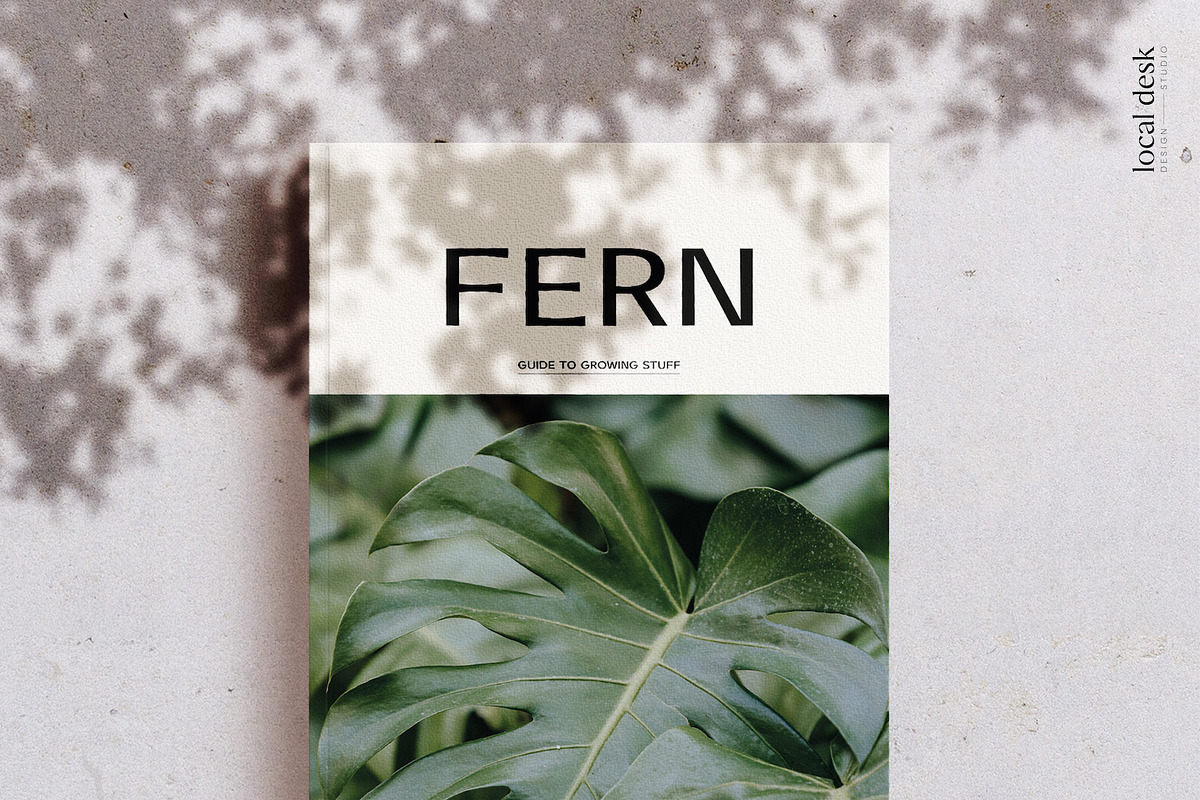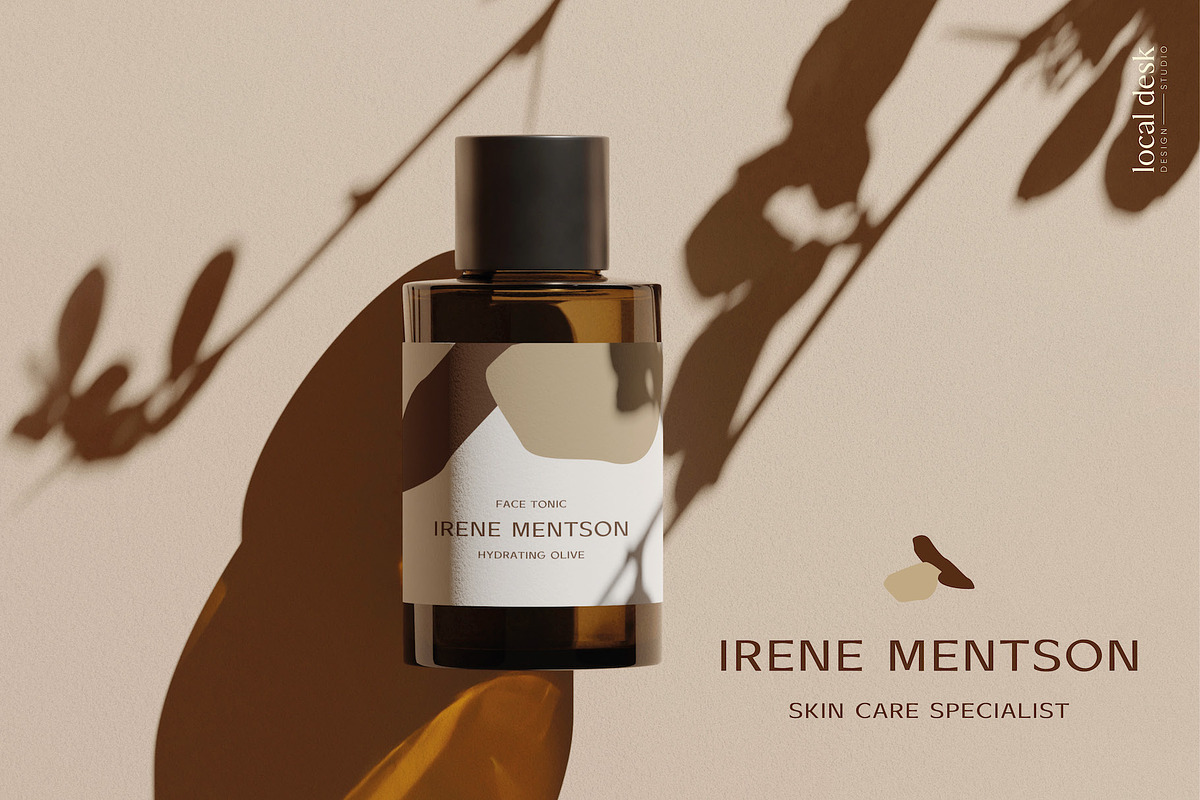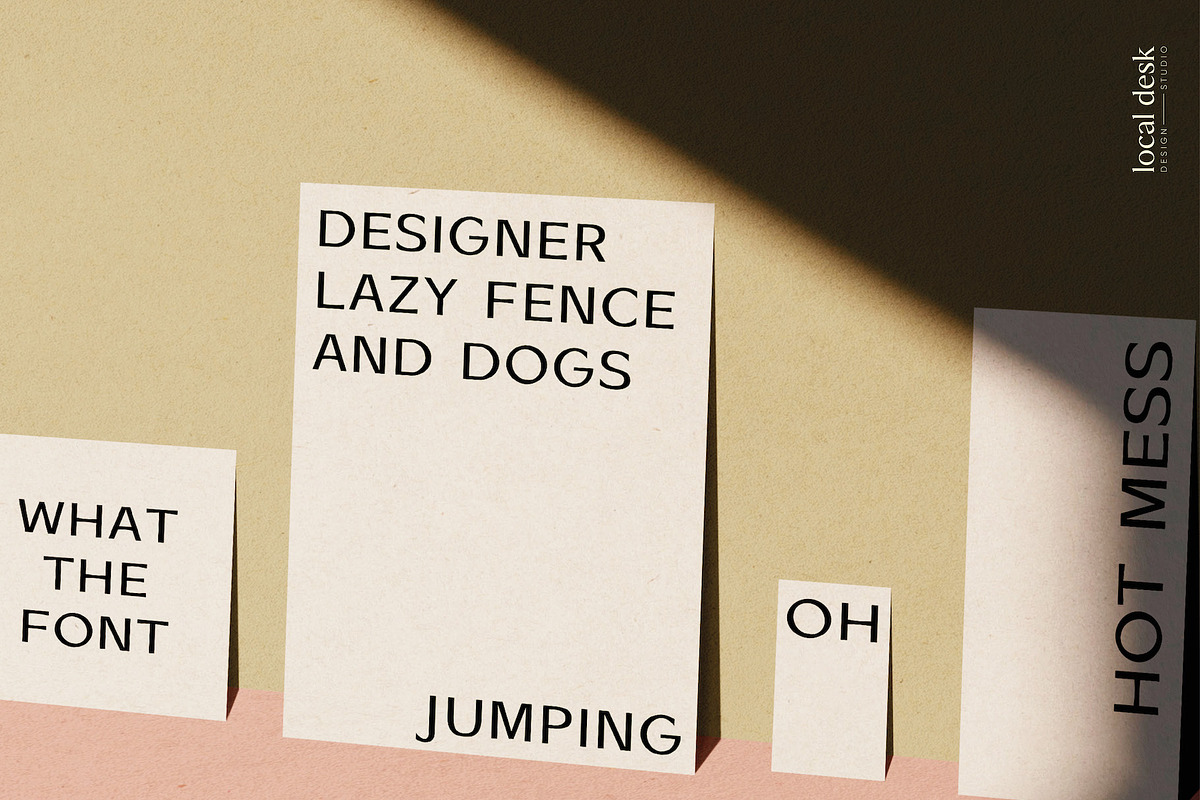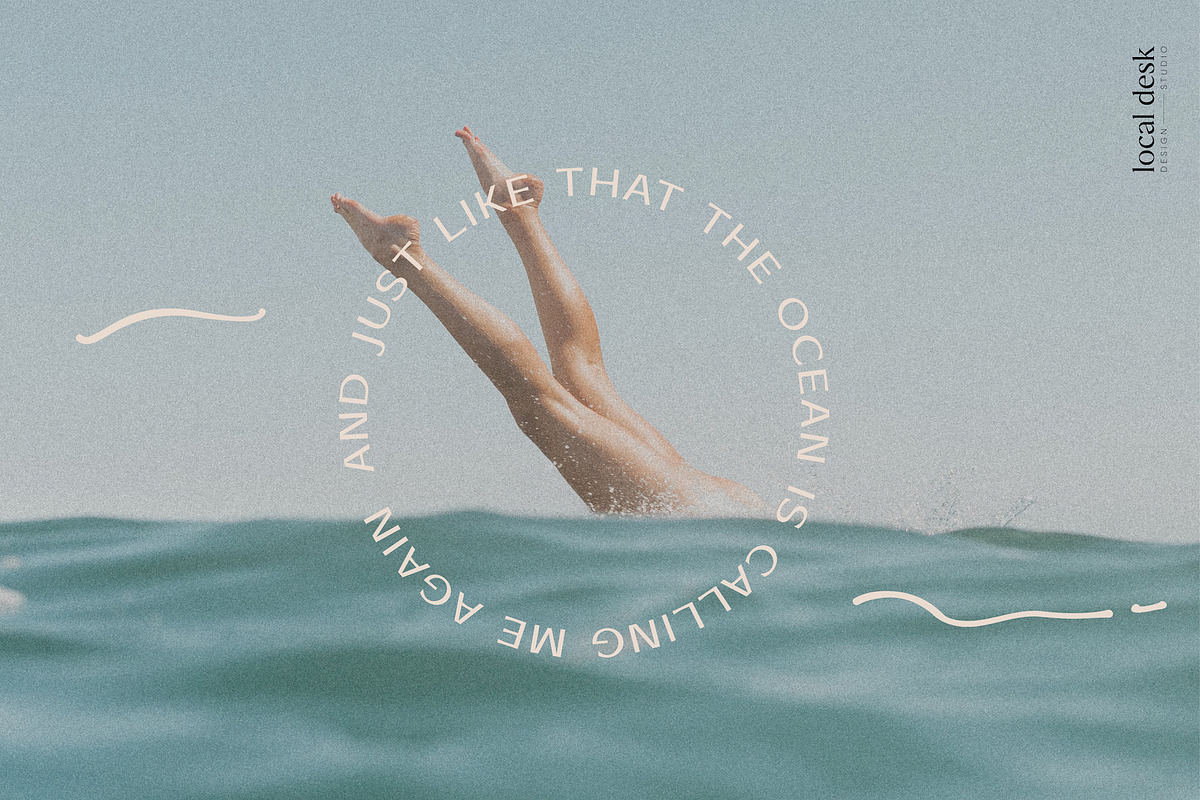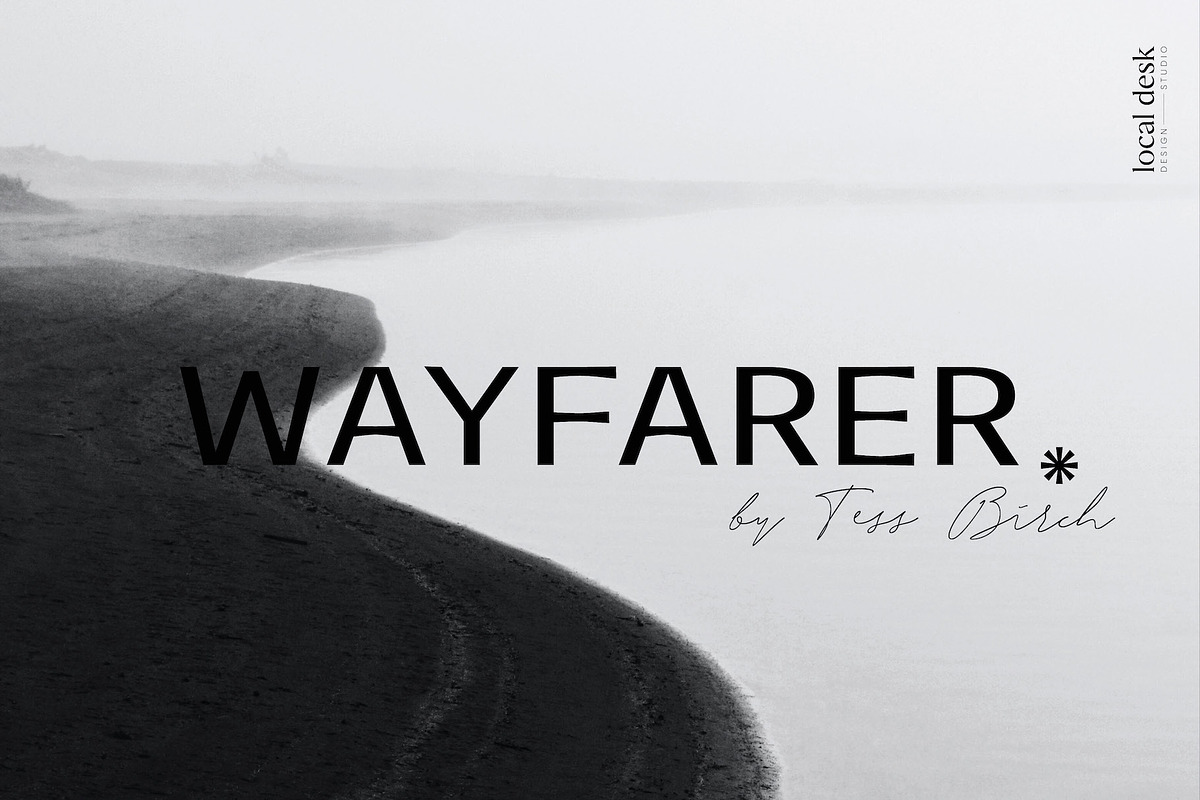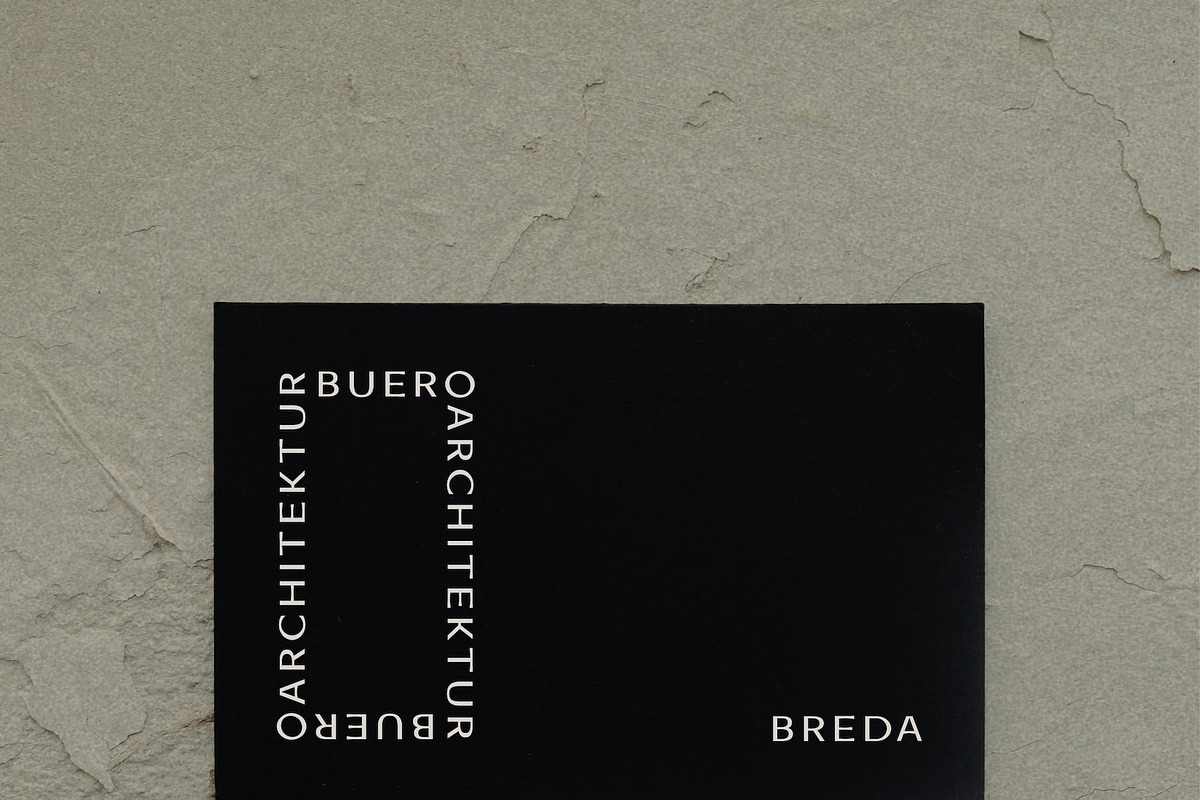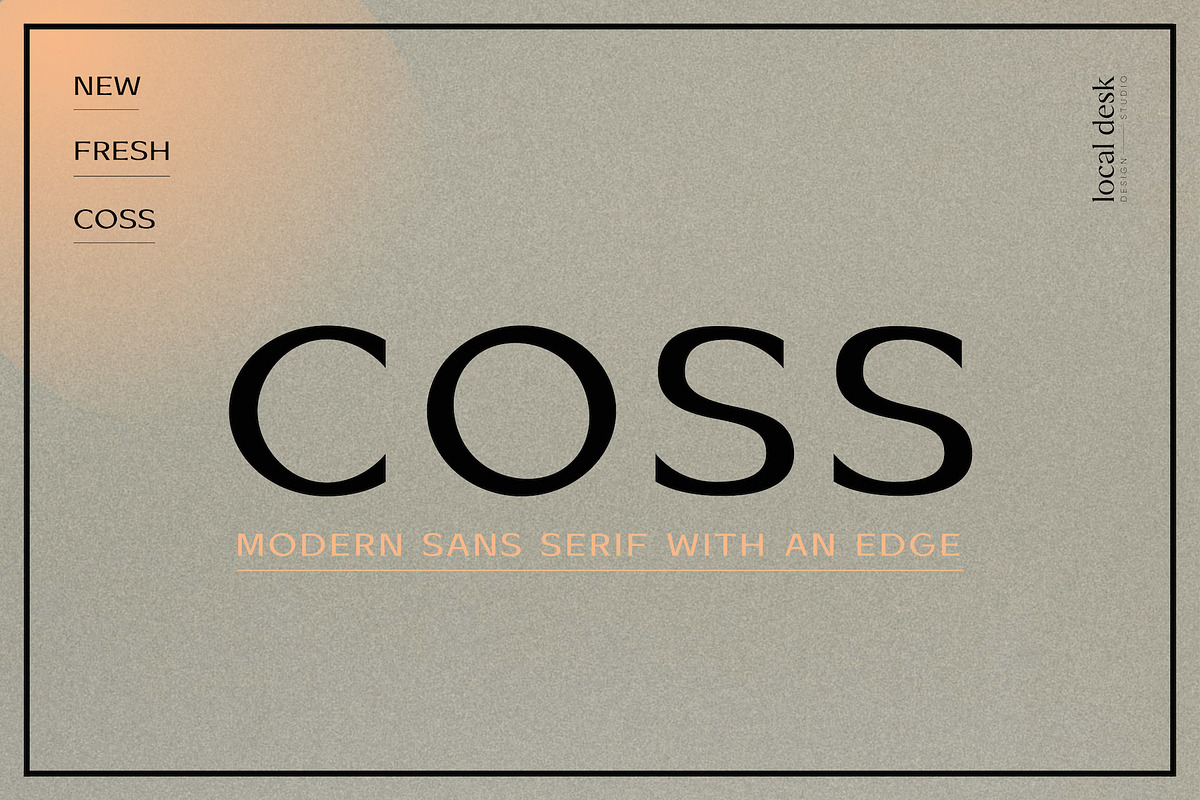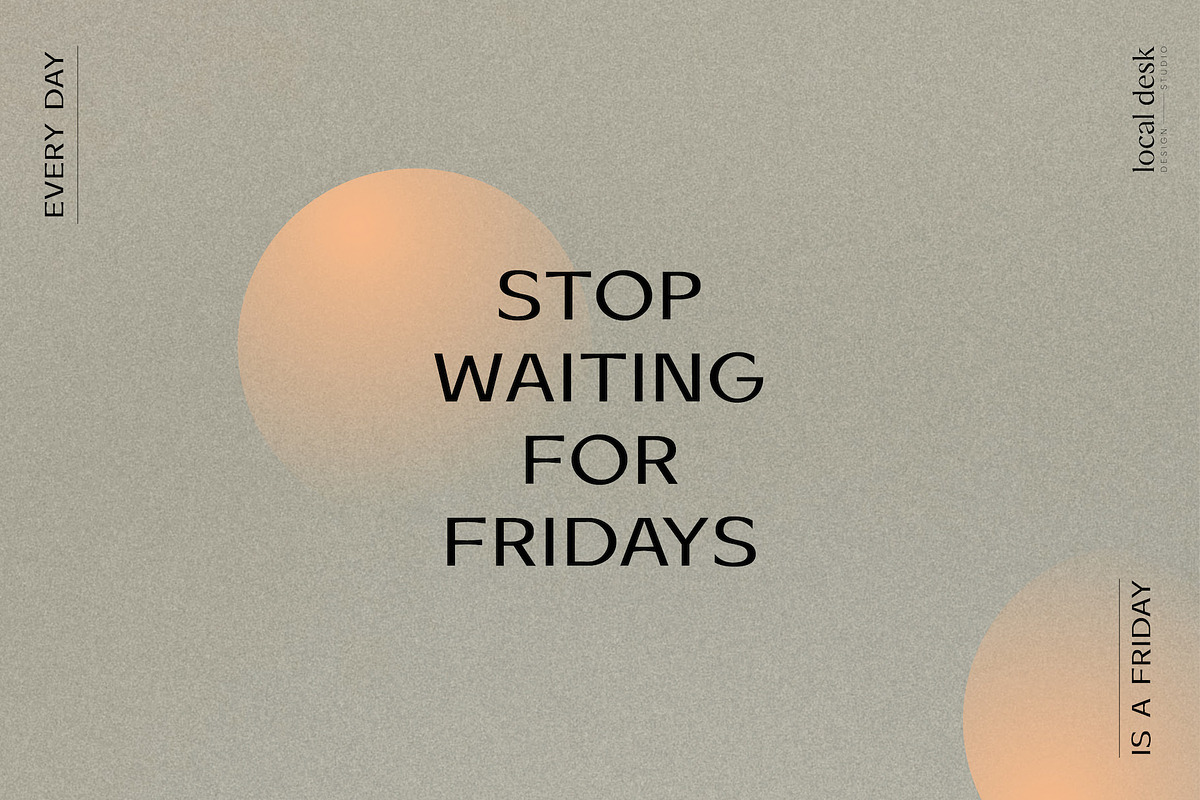
COSS – Modern & Stylish Sans
Coss is a distinctive, modern sans serif typeface with a peculiar vibe. Unique shapes and contrasting lines create a stylish font with a special & unique flow. Coss is perfectly suited for designing recognizable & modern brands, contemporary packaging, bold statements, website headers and so much more!
Extra tip: Pair it with a delicate script font to create beautiful logos and designs.